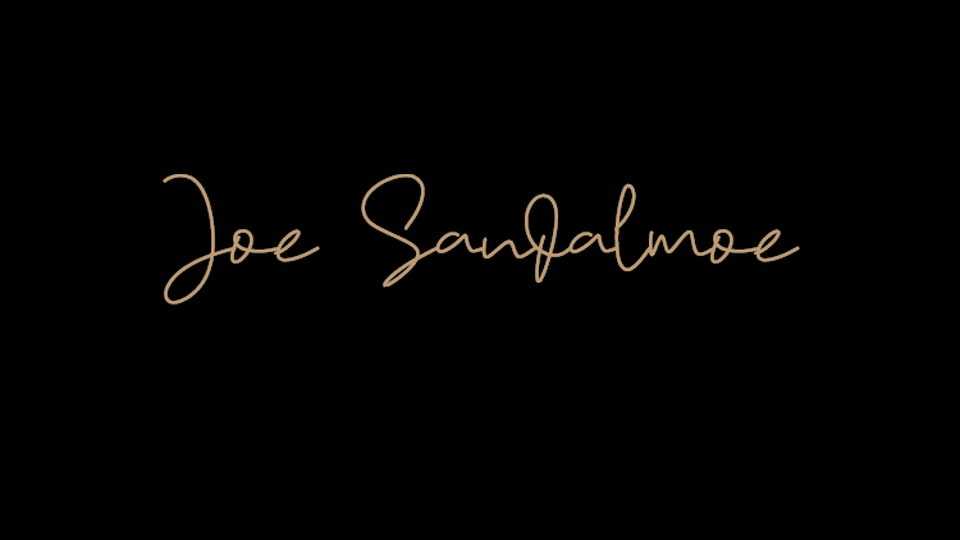
Download Joe Sandalmoe font, a handwritten typeface that combines the grace of cursive handwriting with the uniqueness of a signature. Joe Sandalmoe font is ideal for designs that demand a sense of warmth and personal connection.